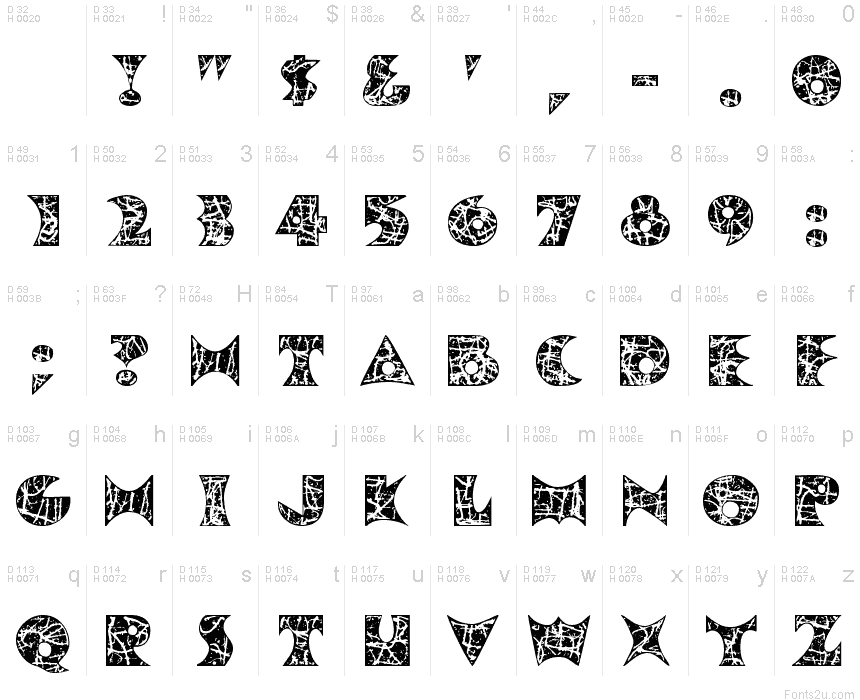
PollockMF
Pollock MF by Rick W. Mueller is a free eroded caps display font with a rough grunge texture that feels splattered, scraped, and weather-beaten all at once. The letters are big and blunt, but that dense web of cracks and paint-like breaks gives them a restless, hand-marked energy instead of a clean poster finish.
It fits music flyers, zine covers, skate graphics, title cards, and bar or club branding where the lettering needs a battered, expressive surface. As a free font, Pollock MF works best in short headlines, logos, and monogram-like initials, where those heavily distressed caps can do the talking without needing much space.